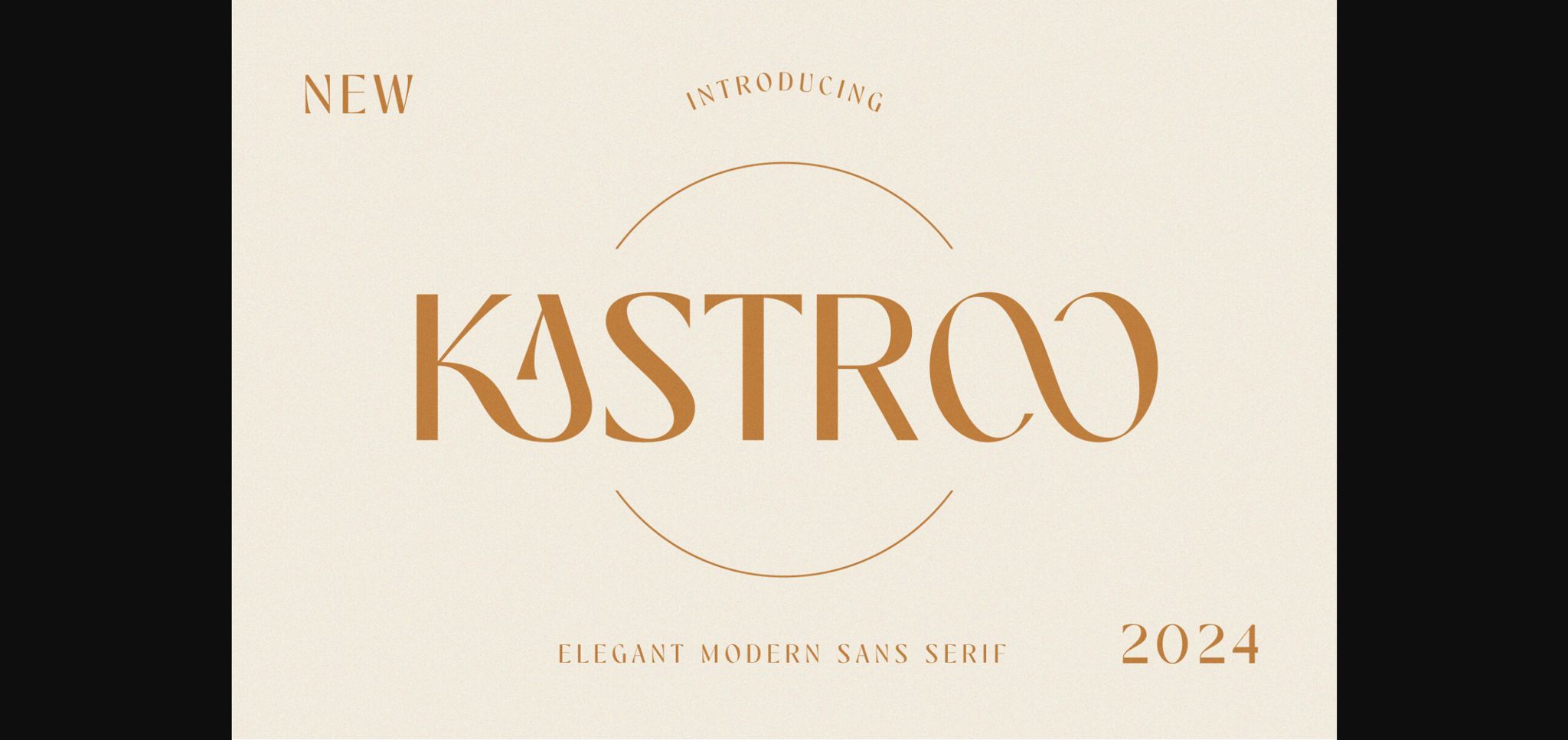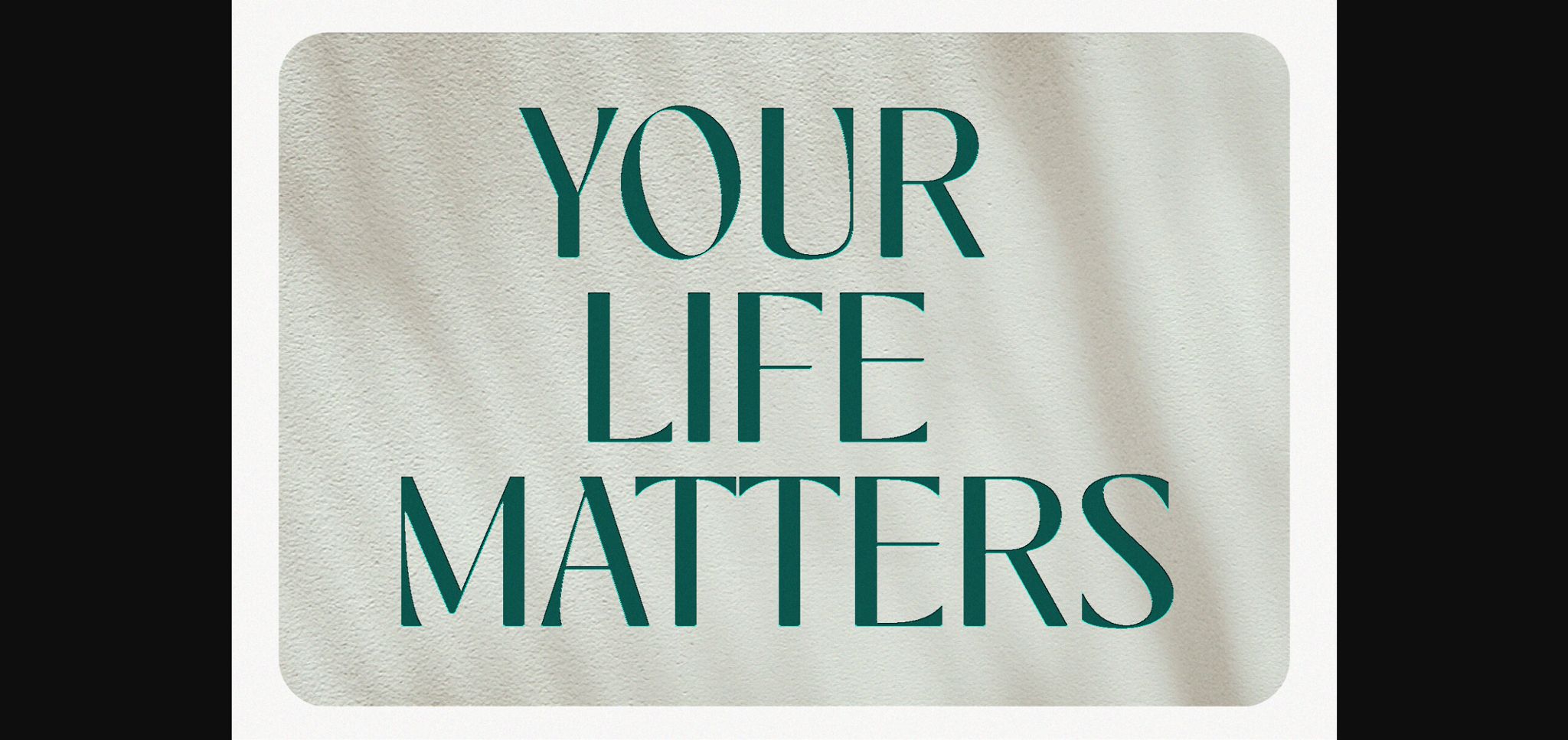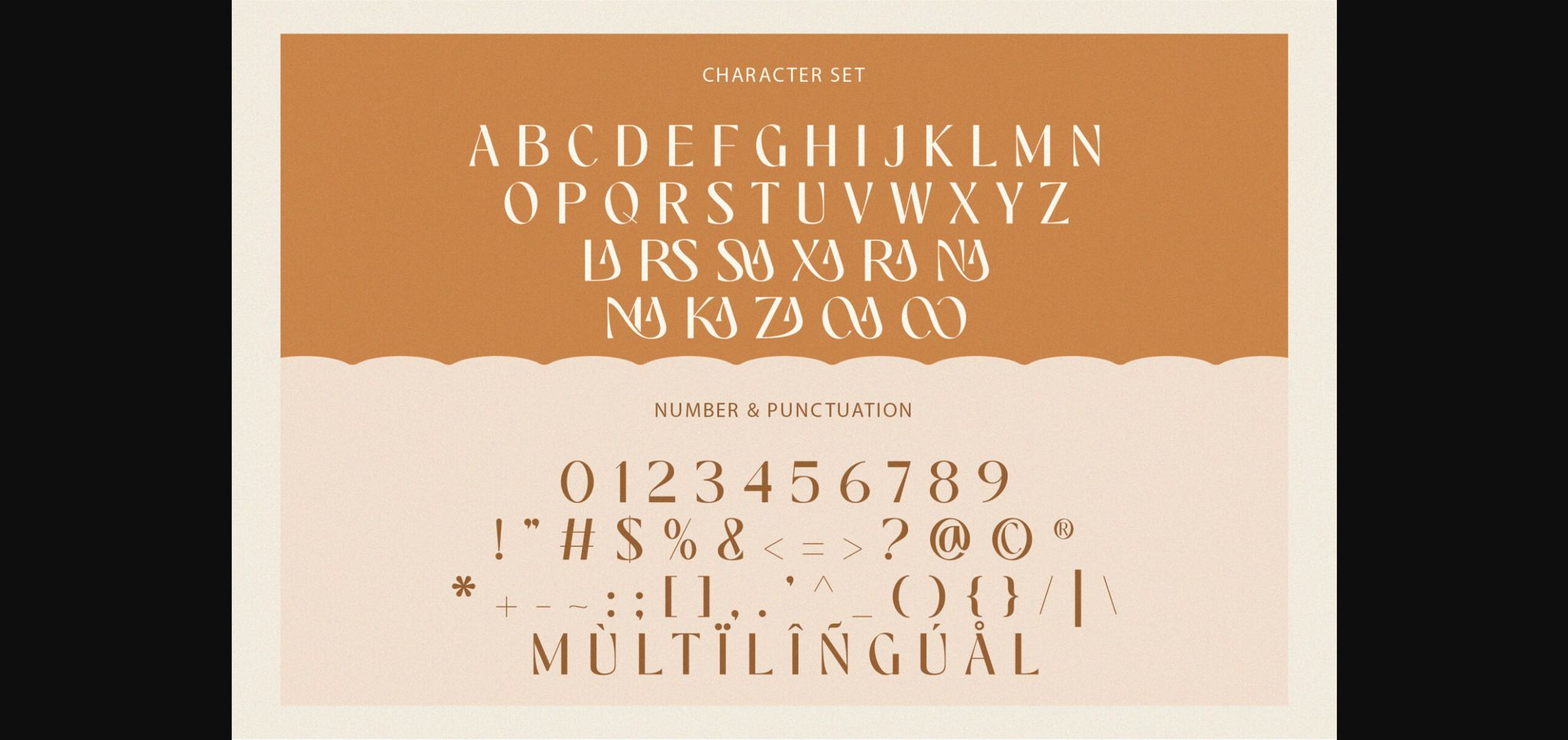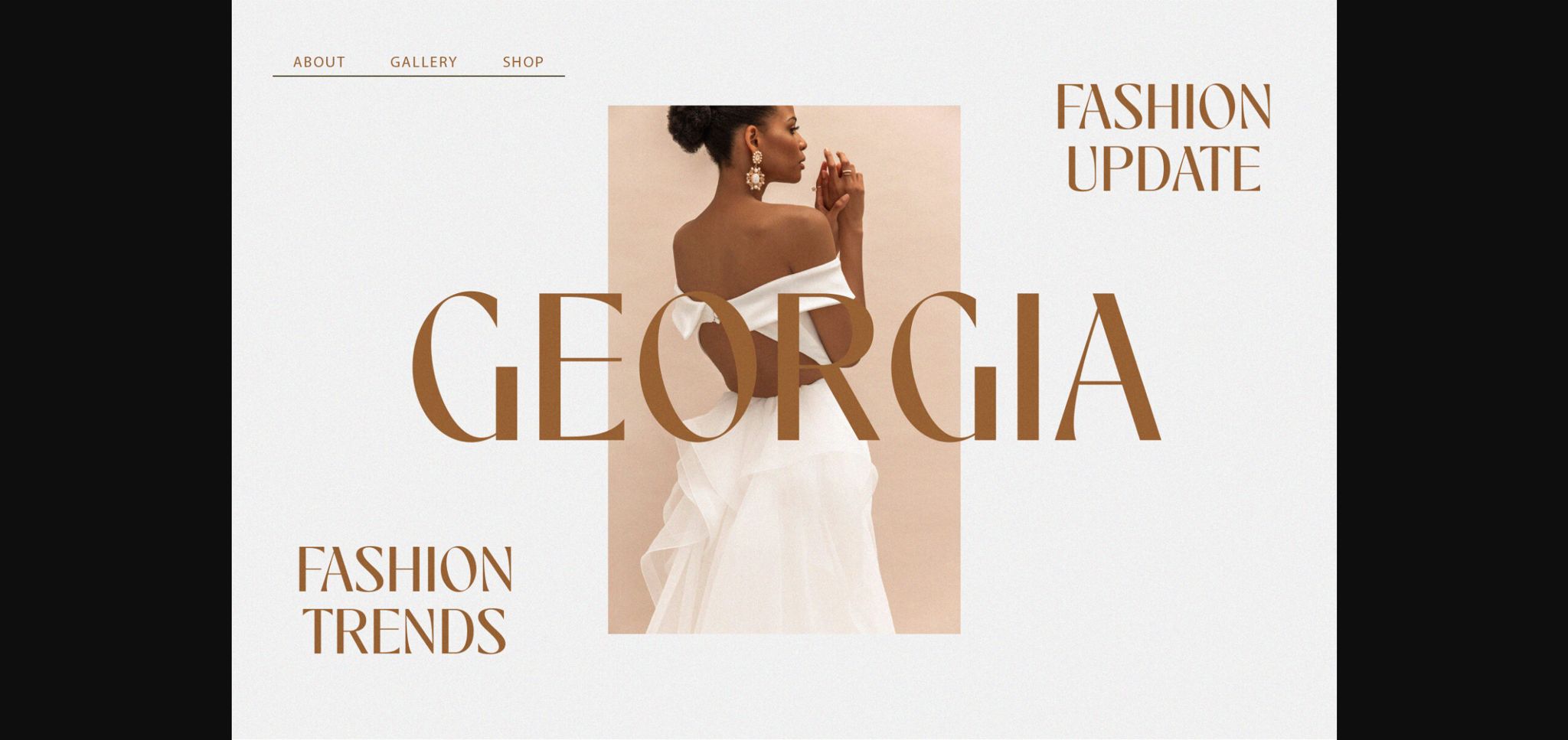
About Kastroo Font
Introducing KASTROO: An elegant and modern sans serif typeface. With its modern and minimalist appearance, KASTROO brings a luxurious and clean style to your projects such as websites, modern logos, branding identities, social media quotes, wedding stationery, and various other needs!
KASTROO displays capital letters A to Z which are unique and classy of course because they are made with great care so that they become beautiful fonts and can be adapted to various large projects that you want.